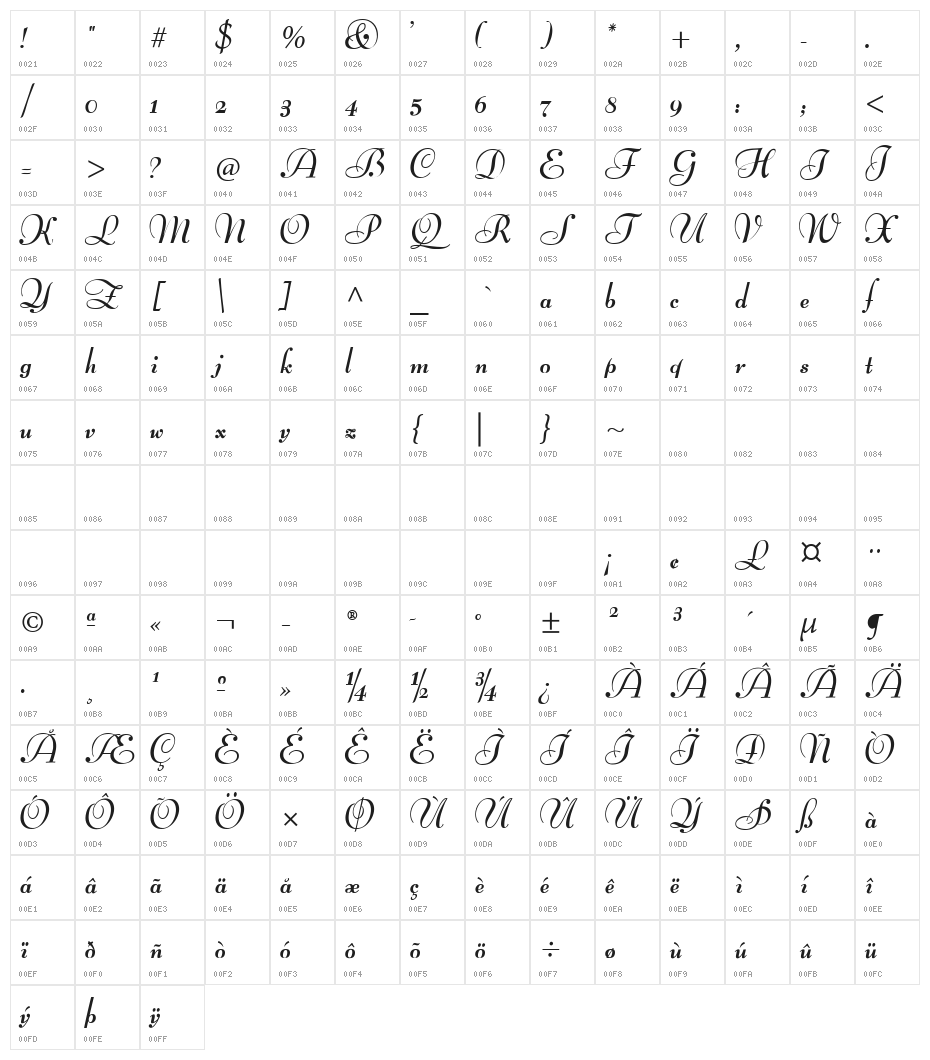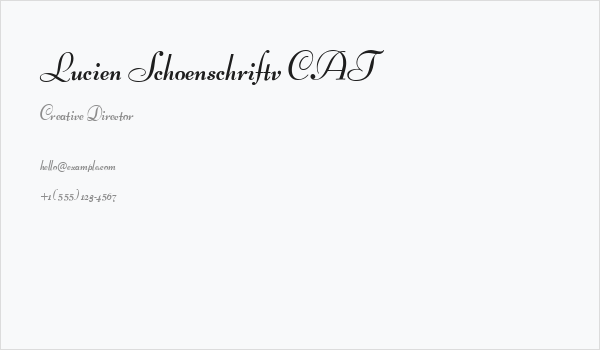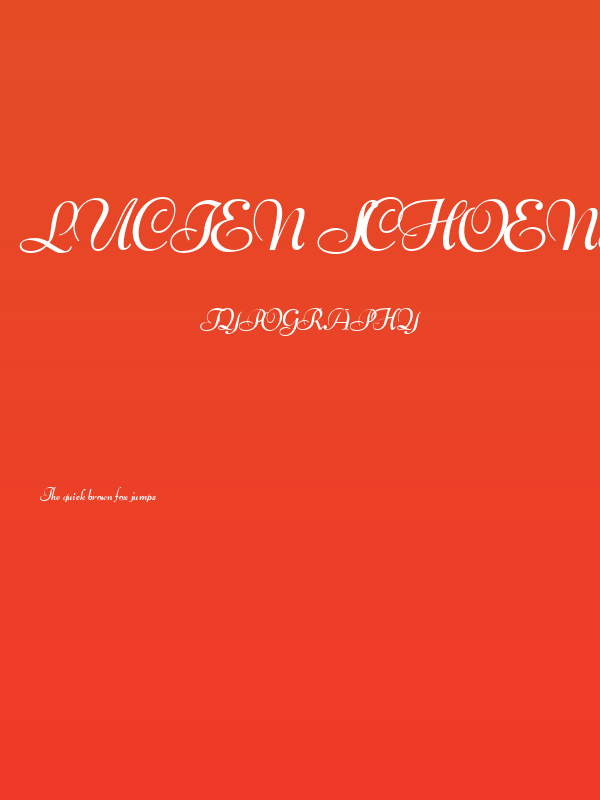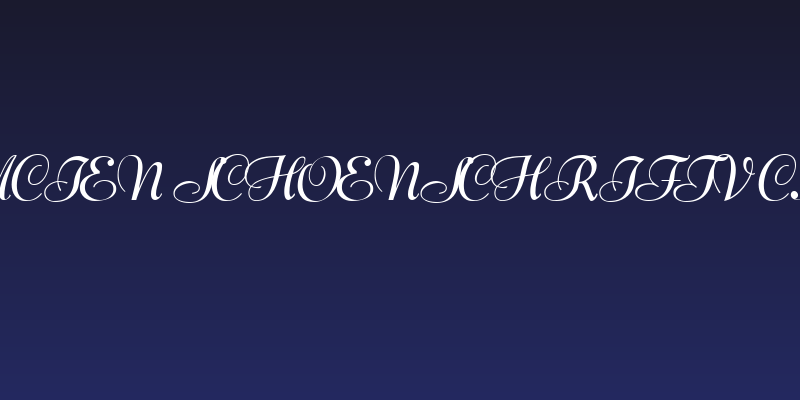
Lucien Schoenschriftv CAT Font
Lucien Schoenschriftv CAT Description
This elegant script font features flowing, cursive letterforms with a classic and sophisticated appearance. The uppercase letters are adorned with graceful loops and swashes, giving them a decorative flair. The lowercase letters maintain a smooth, connected style, enhancing the font's fluidity. The numerals are designed with a similar elegance, ensuring consistency across all characters. Special characters are thoughtfully crafted to match the overall aesthetic, making this font suitable for formal and decorative purposes.